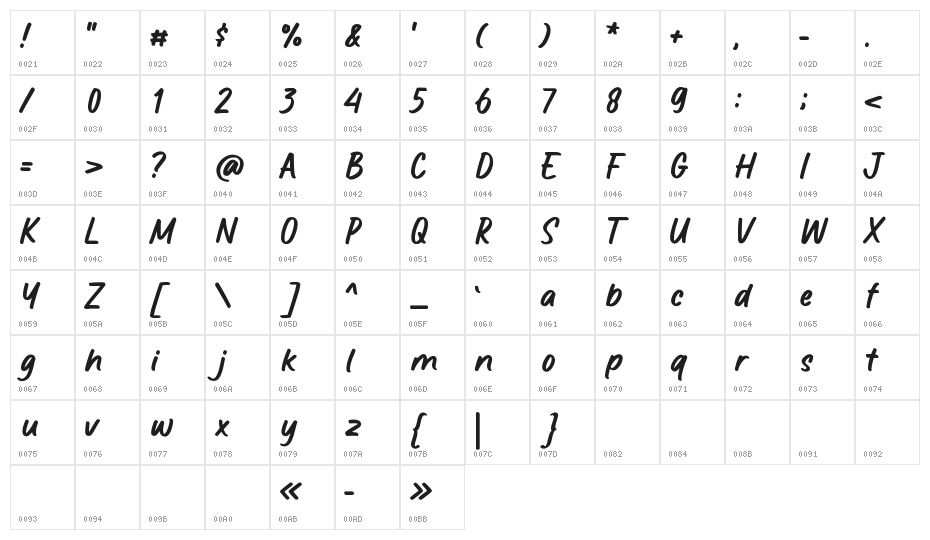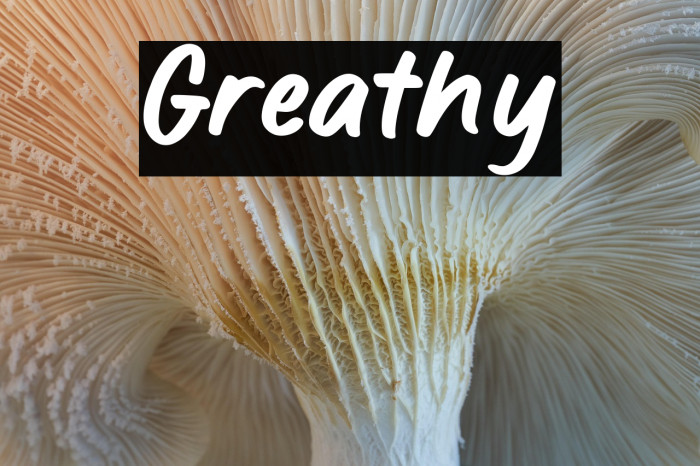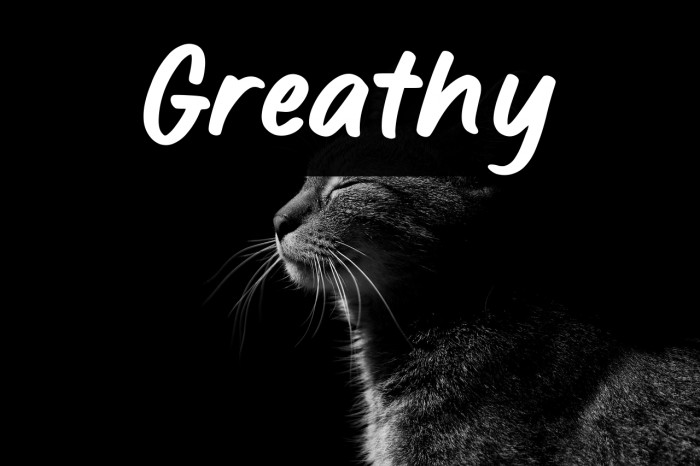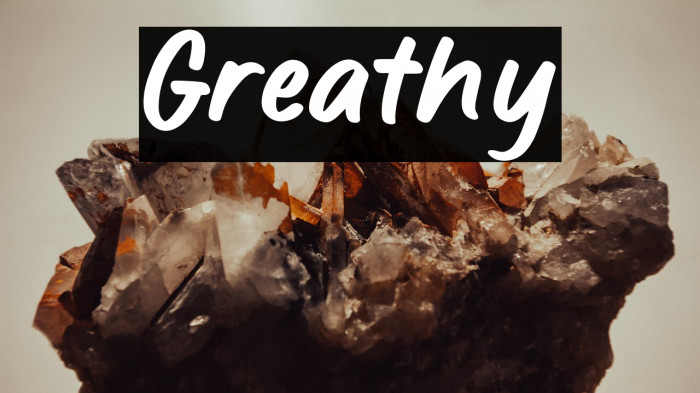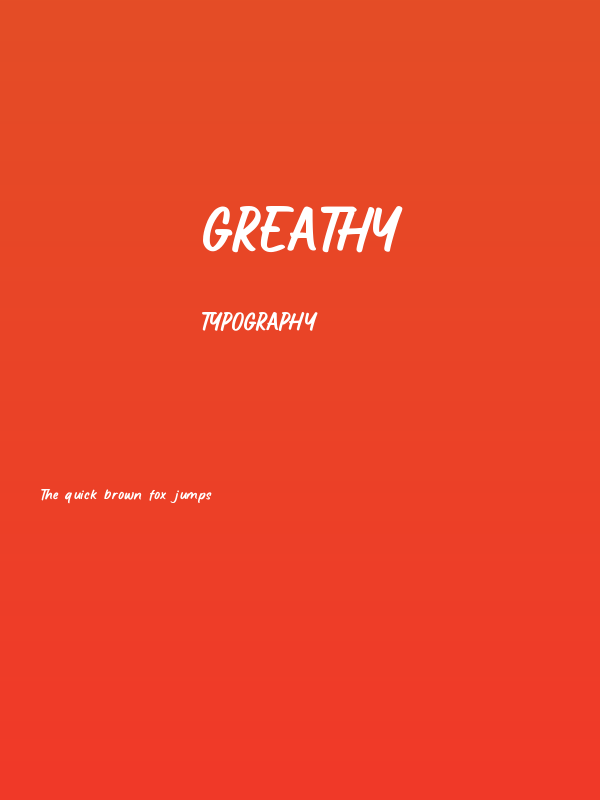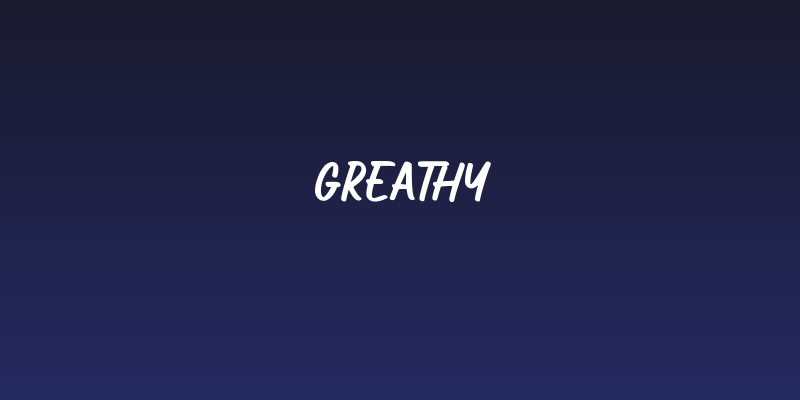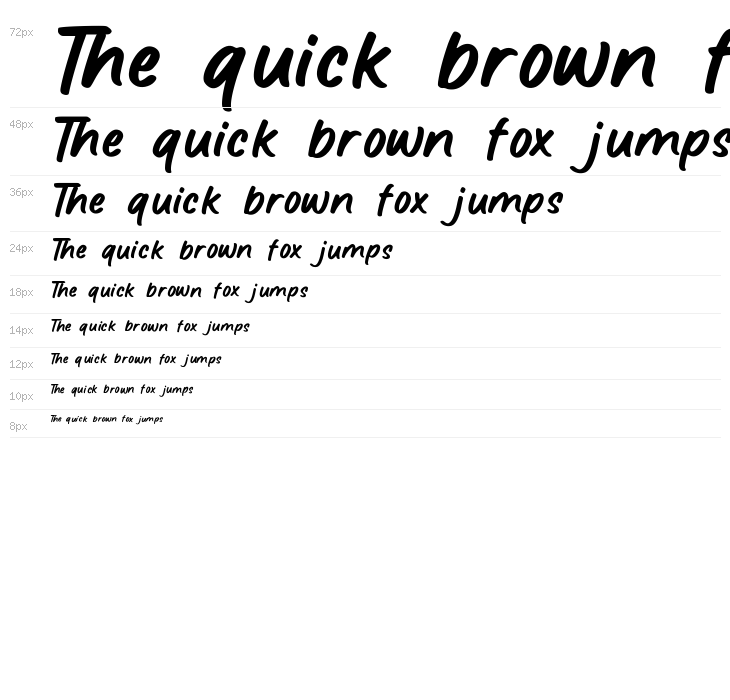
Greathy Font
Greathy Description
This font features a lively and energetic handwritten style, characterized by its fluid and connected strokes. The letters are slightly slanted, giving a dynamic and informal appearance. The uppercase and lowercase letters maintain a consistent style, with rounded edges and smooth curves. The numerals and special characters follow the same playful aesthetic, making the font versatile for various creative applications. The overall look is approachable and friendly, suitable for projects that require a personal touch.
| Overall Style | Casual and Playful |
| Proposed Projects | Ideal for greeting cards, invitations, personal branding, and social media graphics. |